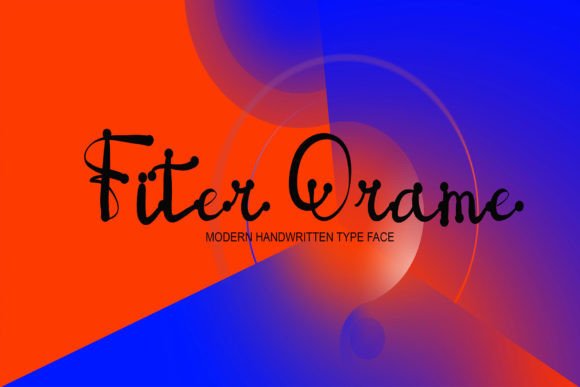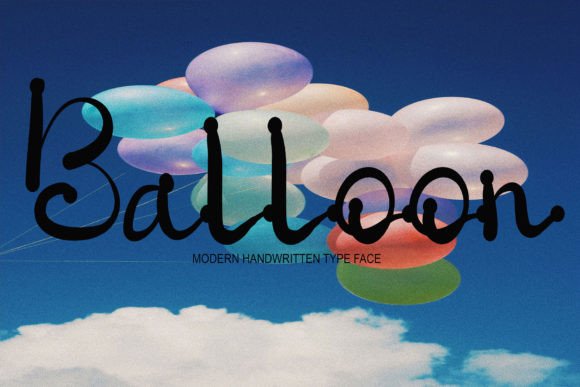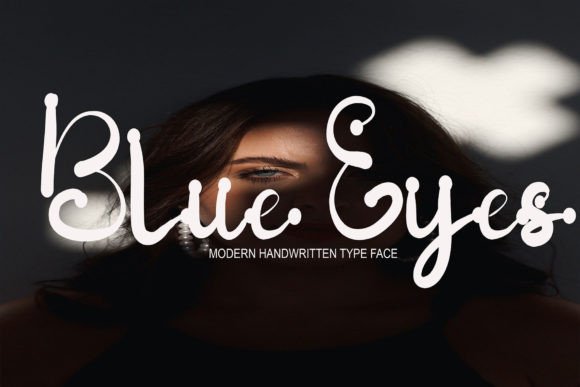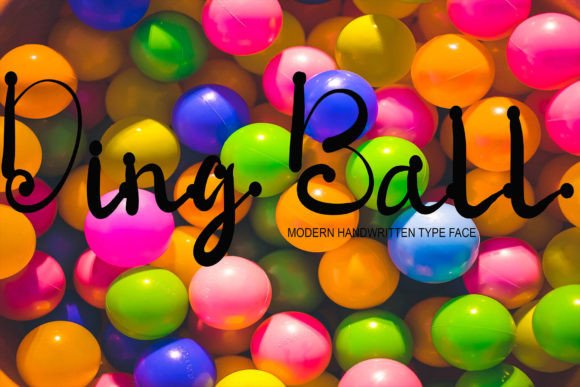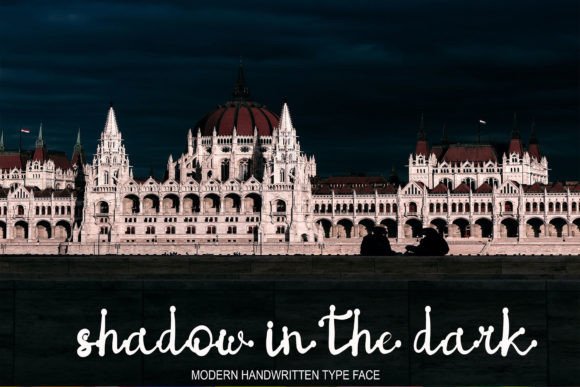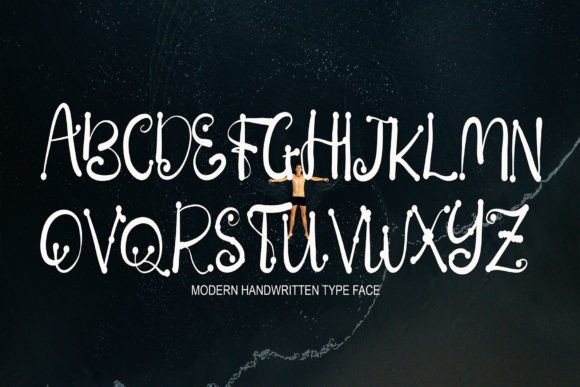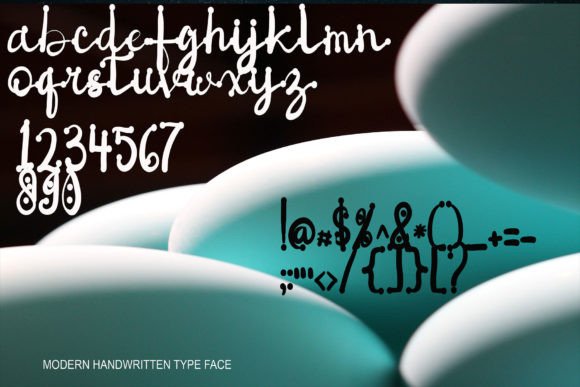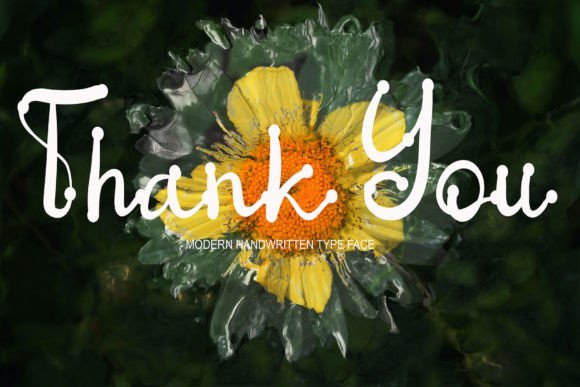
Fiter Orame Font
About Fiter Orame Font
Fiter Orame is a font that radiates a playful and whimsical charm, making it an ideal choice to inject fun and lightheartedness into your projects. This handwritten font carries an air of spontaneity and creativity, and when confidently added to your designs, it promises results that are sure to captivate and delight.
What sets Fiter Orame apart is its ability to infuse a sense of joy and carefree spirit into your creations. The whimsical letterforms dance across the canvas, creating a lively and dynamic visual experience. Whether you’re working on invitations, posters, social media graphics, or any other design project, Fiter Orame brings a touch of playfulness that engages the audience.
The font’s handwritten style contributes to a sense of authenticity, as if each character was crafted with joyous spontaneity. This makes Fiter Orame particularly well-suited for projects that aim to convey a sense of warmth and friendliness.
Confidently integrating Fiter Orame into your designs opens up a world of creative possibilities. Its versatility allows it to shine across various applications, from branding and packaging to personal projects that demand a dash of whimsy. By embracing the lively spirit of Fiter Orame, you can create designs that stand out and leave a lasting impression.
In conclusion, Fiter Orame is not just a font; it’s a design tool that brings an element of fun and whimsy to your creative endeavors. As you confidently incorporate it into your projects, you’ll find that the results are nothing short of delightful. Let Fiter Orame be the spark that adds joy and playfulness to your designs, making them not only visually appealing but also memorable and engaging.